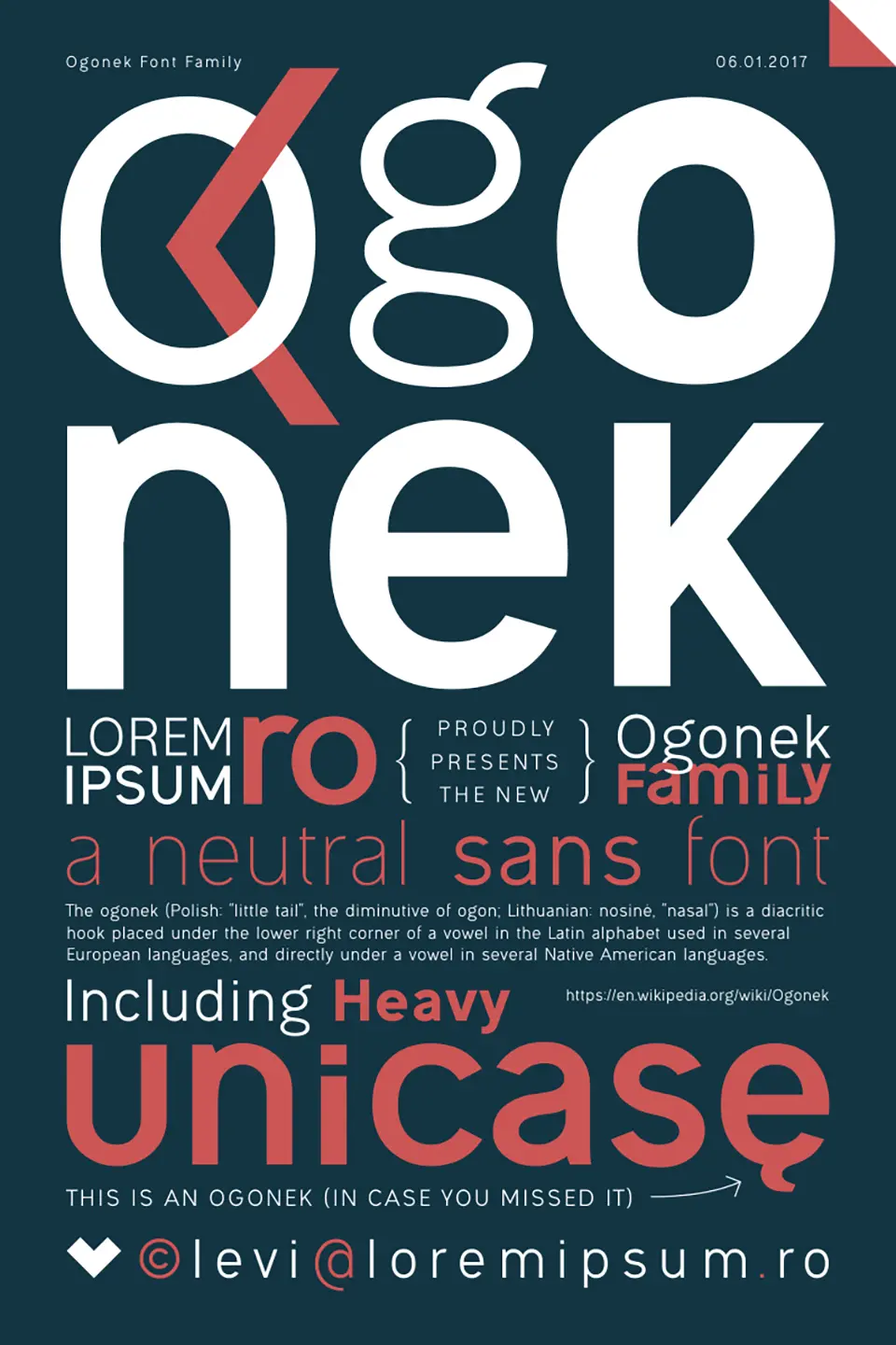
Ogonek Unicase Font Family
Ogonek Unicase Font Family is a modern and versatile typeface designed by Levi Szekeres. This clean and geometric sans-serif font evokes a contemporary feel while maintaining simplicity and readability. The family consists of seven different styles, including light, regular, bold, and italic variations, offering designers a range of options for various projects. Ogonek Unicase is characterized by its uniform character width and strong geometric structure, making it ideal for logos, branding, headlines, and web design. Its neutral yet distinctive appearance allows it to work well in both technical and artistic contexts. The font’s name is inspired by the Polish diacritic “ogonek,” reflecting its attention to detail and international character set support.